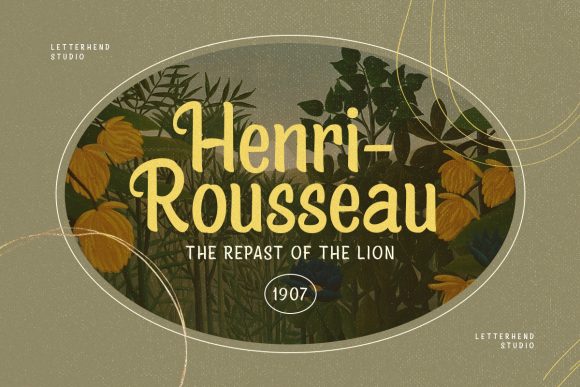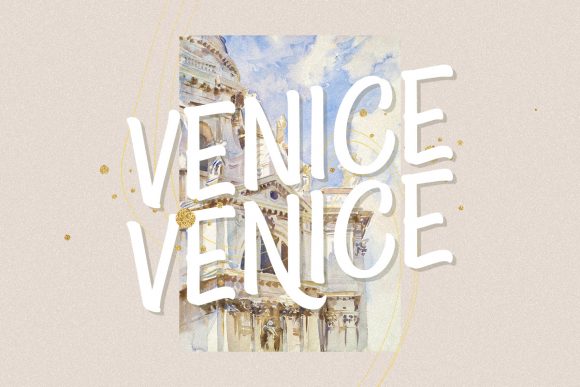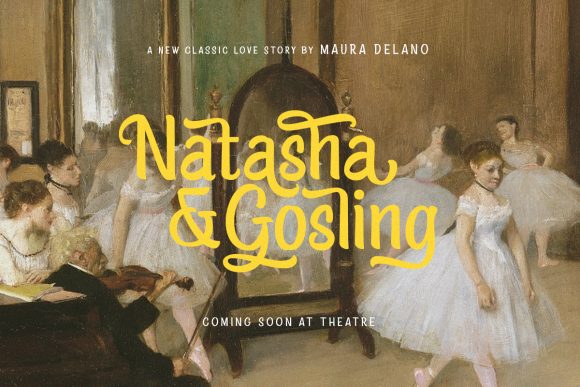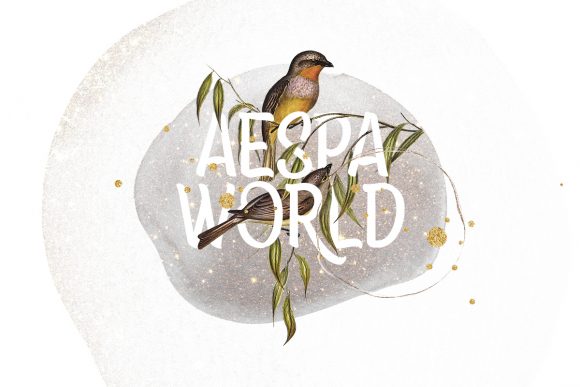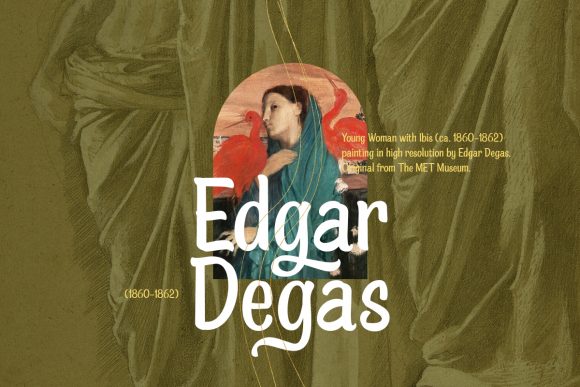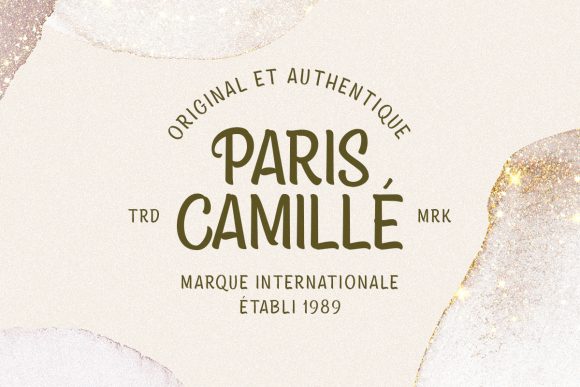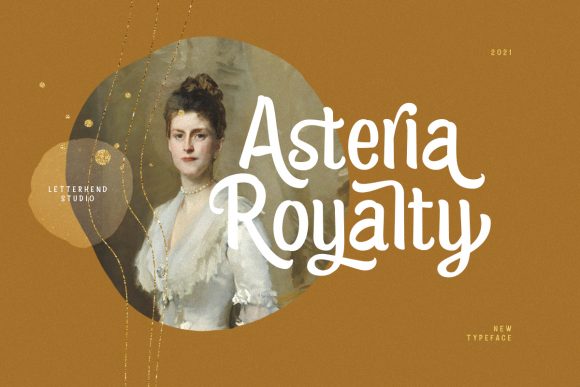
Asteria Royalty Font: Elevate Your Designs with a Touch of Vintage Elegance
In the world of typography, fonts play a crucial role in conveying the tone and personality of a design. For designers and crafters looking to add a touch of vintage elegance to their creations, Asteria Royalty Font is an exceptional choice. This stunning display font boasts a unique blend of organic and distinct characteristics, making it a valuable asset to any font library.
What is Asteria Royalty Font?
Asteria Royalty Font is a vintage-styled, organic, and distinct display font designed to elevate your designs with a touch of sophistication. Its classic charm and modern flair make it perfect for a wide range of projects, from branding and advertising to packaging and digital media. Whether you’re working on a logo, headline, or title, Asteria Royalty Font is sure to make a lasting impression.
Key Features of Asteria Royalty Font
- Vintage Style: Asteria Royalty Font features a unique vintage style that adds a touch of elegance and sophistication to any design.
- Organic and Distinct: The font’s organic and distinct characteristics make it stand out from other fonts, giving your designs a one-of-a-kind look.
- PUA Encoded: Asteria Royalty Font is PUA encoded, which means you can access all glyphs and swashes with ease, giving you maximum flexibility and creative control.
- Display Font: Designed specifically as a display font, Asteria Royalty Font is perfect for headlines, titles, and logos.
Why Choose Asteria Royalty Font?
- Versatility: Asteria Royalty Font can be used for a wide range of projects, from digital media to print materials.
- Ease of Use: The font’s PUA encoding makes it easy to access all glyphs and swashes, even for those without extensive design experience.
- Unique Style: Asteria Royalty Font’s vintage style and organic characteristics make it a unique addition to any font library.
- High-Quality Design: The font is designed with high-quality craftsmanship, ensuring that it looks great in any design.
How to Use Asteria Royalty Font
- Pair it with Other Fonts: Combine Asteria Royalty Font with other fonts to create a unique and visually appealing design.
- Experiment with Colors: Try pairing the font with different colors to add depth and interest to your design.
- Use it for Headlines and Titles: Asteria Royalty Font is perfect for headlines and titles, where its vintage style and organic characteristics can really shine.
- Graphic Designers: Add a touch of vintage elegance to your designs with Asteria Royalty Font.
- Crafters: Use Asteria Royalty Font to create beautiful and unique craft projects, such as handmade cards and invitations.
- Digital Artists: Incorporate Asteria Royalty Font into your digital art projects for a touch of sophistication.
In conclusion, Asteria Royalty Font is a stunning vintage-styled, organic, and distinct display font that can elevate your designs with a touch of elegance and sophistication. With its PUA encoding, ease of use, and high-quality design, this font is perfect for designers and crafters looking to add a unique touch to their creations. Whether you’re working on a logo, headline, or title, Asteria Royalty Font is sure to make a lasting impression.